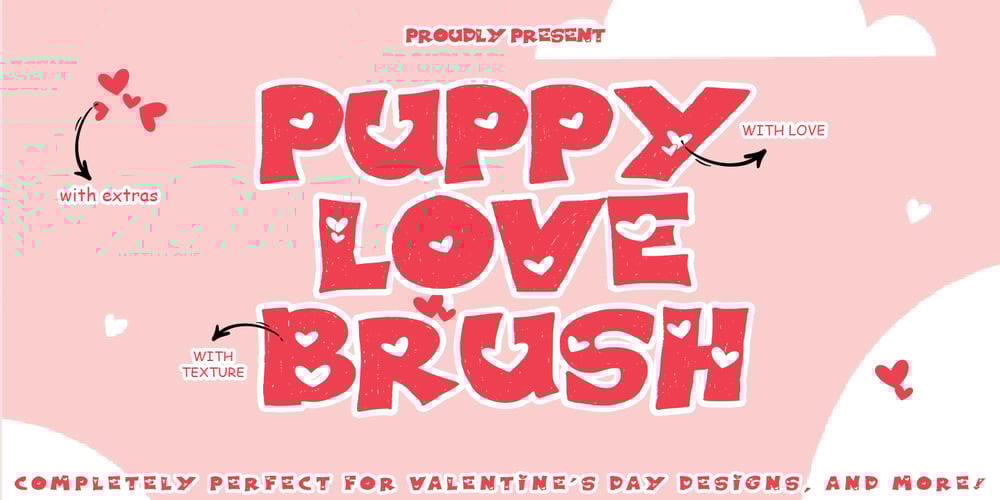
Puppy Love Brush
Puppy Love Brush font
Puppy Love Brush Font Family was designed by Thomas Aradea and published by Letterara. Puppy Love Brush contains 1 styles and family package options. Puppy Love Brush is a new font inspired by a couple who is in love, and it illustrates the power of love that radiates strongly. It is completely perfect for Valentine’s Day designs, and more! What’s included: 1. Works both on Mac & PC 2. Simple installations 3. With Extras 4. Accessible in the Adobe Illustrator, Adobe Photoshop, Adobe InDesign, CorelDraw, even work on Microsoft Word. 5. Support multilingual; ä ö ü Ä Ö Ü ß ¿ ¡ 6. To access the alternate glyphs, you need a program that supports OpenType features such as Adobe Illustrator CS, Adobe Photoshop CC, Adobe Indesign, and CorelDraw. More information about how to access alternate glyphs, check out this link (http://goo.gl/ZT7PqK) To stay up to date for my latest job, follow me and let’s be friends because there will be many promos.